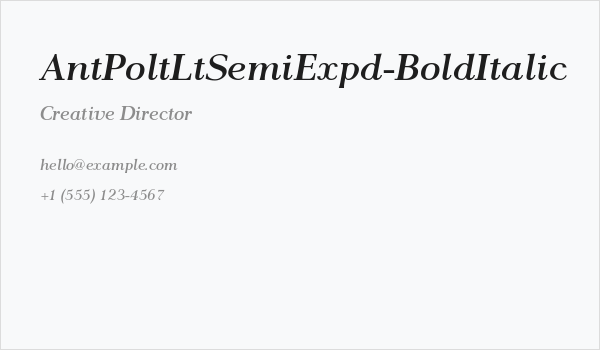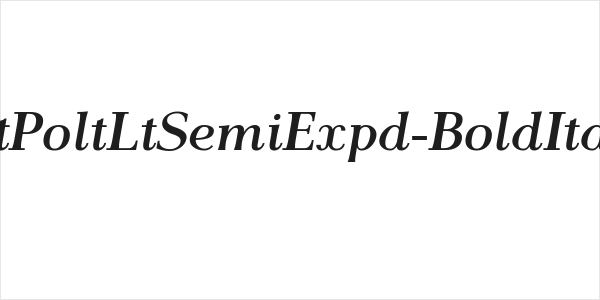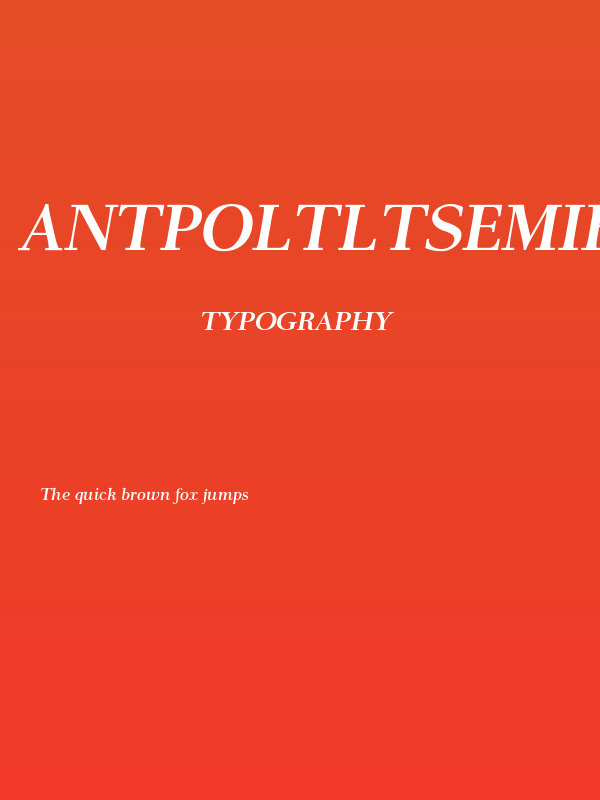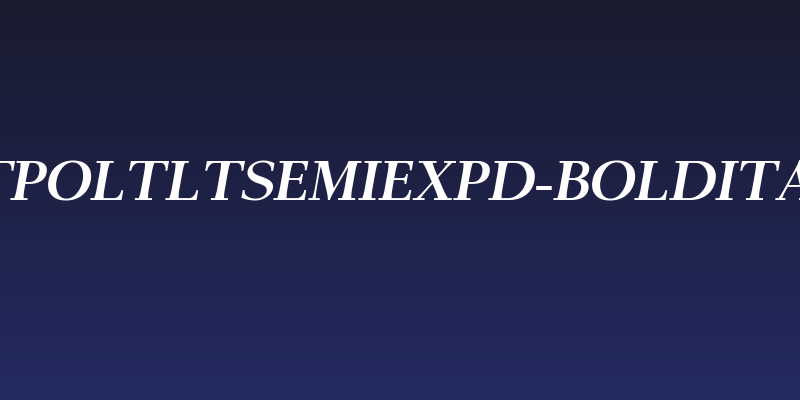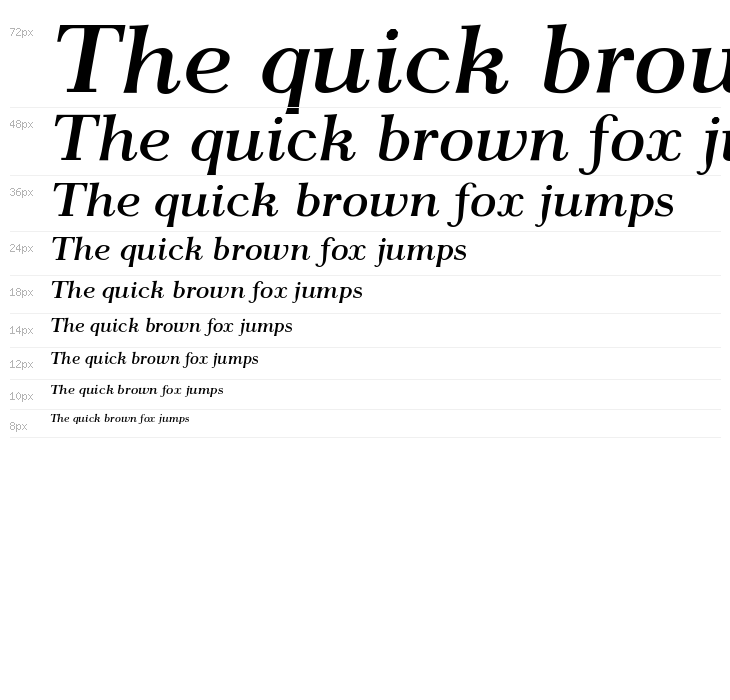
AntPoltLtSemiExpd-BoldItalic Font
AntPoltLtSemiExpd-BoldItalic Description
This font exhibits a classic serif style with a modern twist, characterized by its elegant and slightly expanded letterforms. The italic nature of the font adds a sense of motion and sophistication, making it suitable for formal and professional applications. The bold weight ensures that the text stands out, while the medium contrast in stroke thickness provides a balanced and readable appearance. The character spacing is normal, allowing for clear legibility across various sizes. This font's overall style is a blend of traditional and contemporary elements, making it versatile for different design needs.
| Use Case | Headlines, Logos, Editorial design |
| Proposed Projects | Ideal for use in branding, editorial design, book covers, and elegant invitations. |